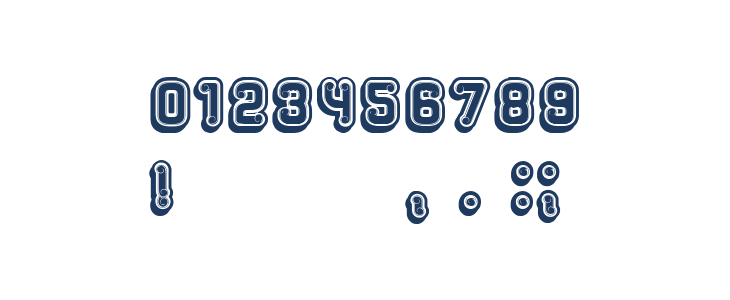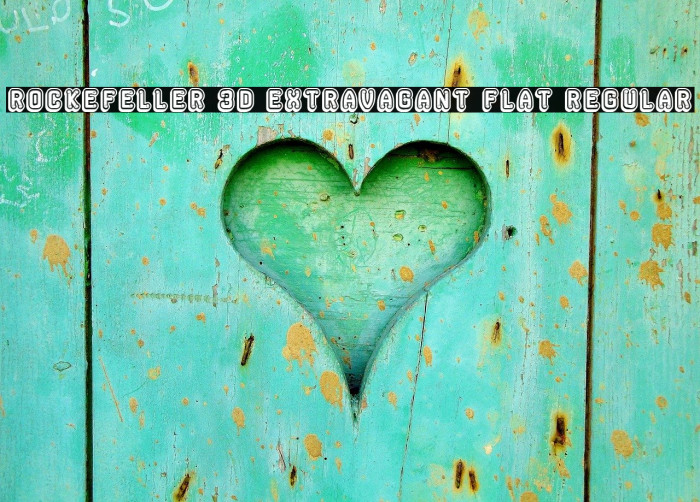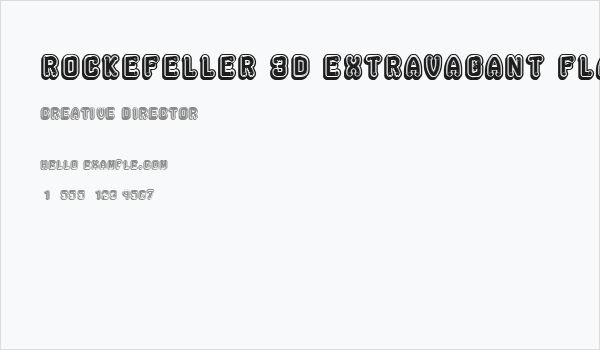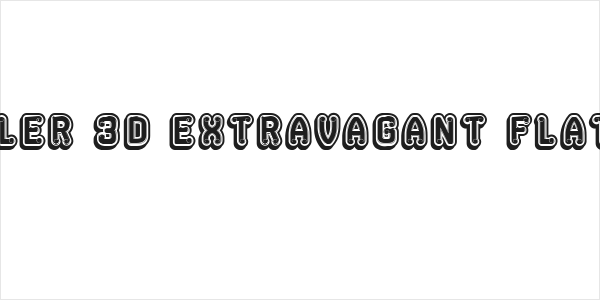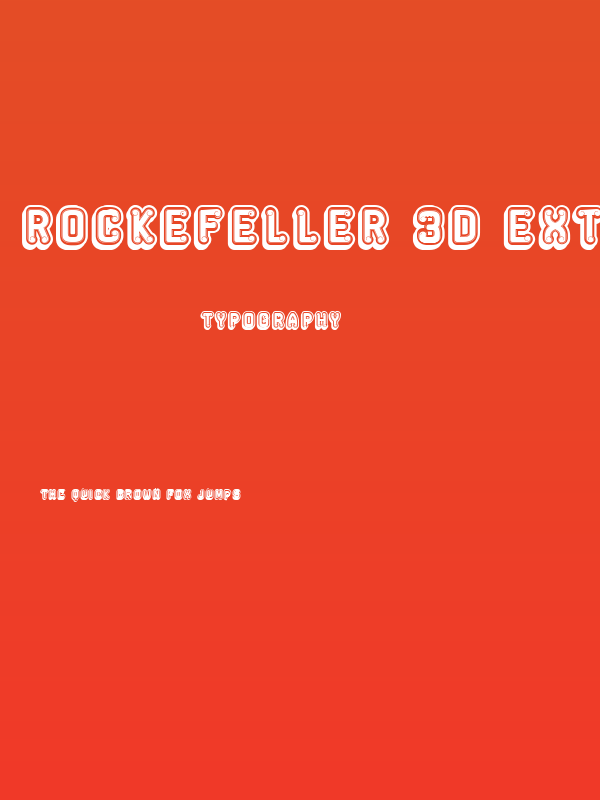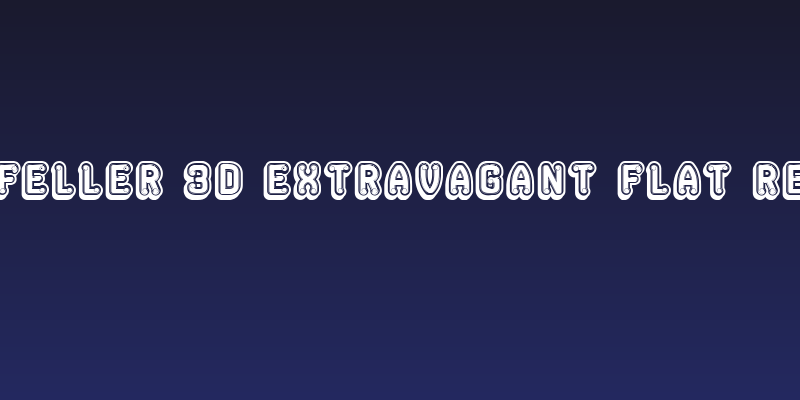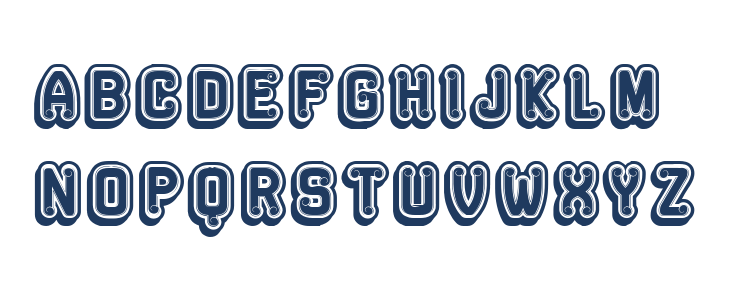
Rockefeller 3D Extravagant Flat Regular Font
Rockefeller 3D Extravagant Flat Regular Description
This font features a bold, three-dimensional appearance with an extravagant and playful style. The letters are outlined with a thick, black border that gives them a striking, shadowed effect. The interior of each character is filled with a lighter shade, enhancing the 3D illusion. The font maintains a consistent thickness throughout, with rounded edges that add a friendly and approachable feel. The characters are evenly spaced, providing a balanced and harmonious look. This font is ideal for making a statement and capturing attention with its unique and dynamic design.
Rockefeller 3D Extravagant Flat Regular